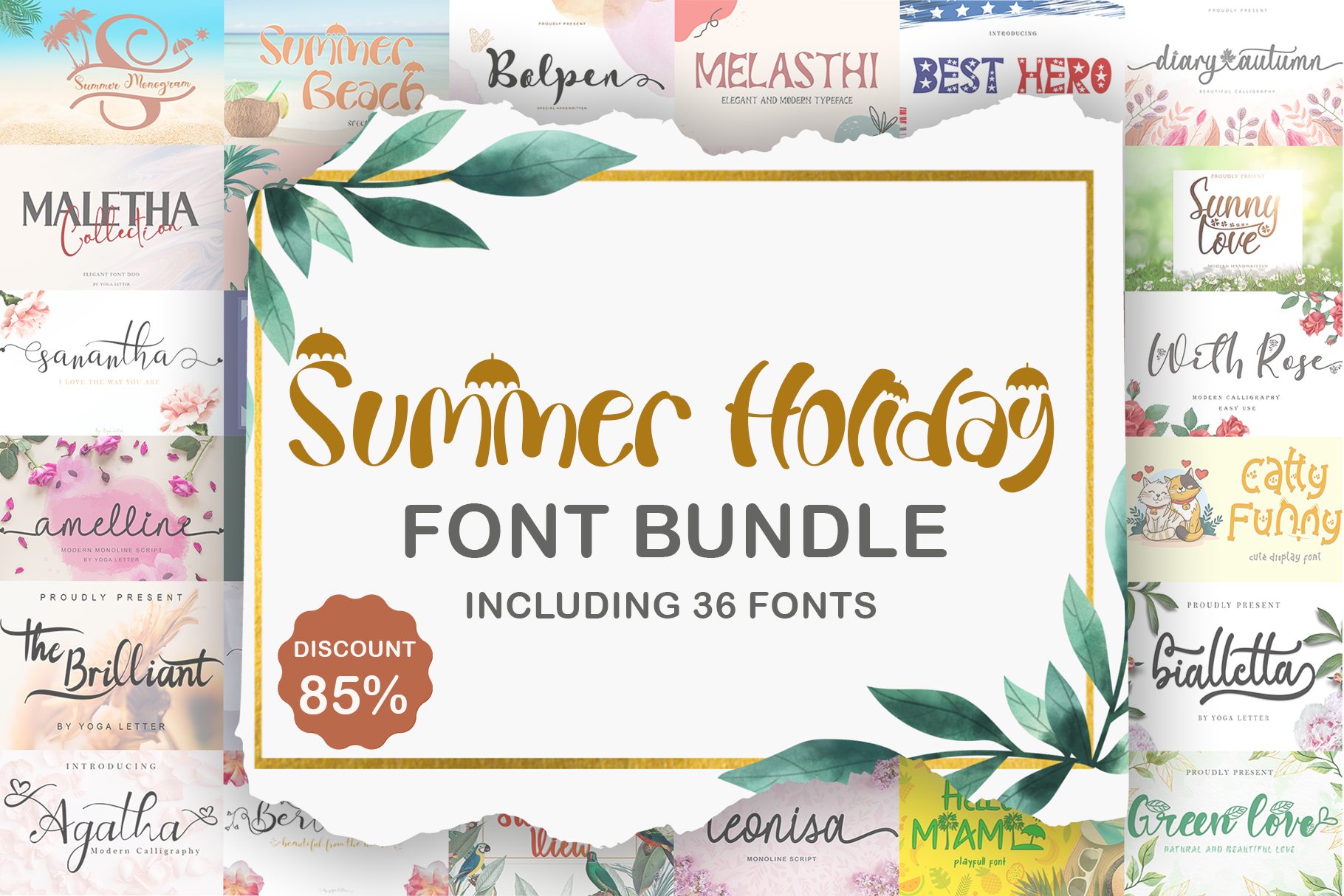
Summer Holiday Font Bundle
This set includes 36 beautiful and popular fonts summer !!! Summer Monogram Summer Beach Bolpen Melasthi Best Hero Diary Autumn Maletha Collection Tropical Sweet Dino Park Melathi Spring Heart Sanantha Sunny Love Mahartha Sunrose Smile Rabbit Vienetta With Rose Amelline Royal Signature Linford Betharia Selvia Cahya Catty Funny The Brilliant With Danilla Maretha Queenatha Mikella Bialletha Agatha Berthessa Summer View Leonisa Hello Miami Green Love
This bundle is perfect for a variety of projects such as christmas, weddings, designs, branding, logos, invitations, stationery, social media posts, advertisements, product packaging, product designs, labels, photography, valentine, easter, mother day, father day, watermarks, special events or whatever.